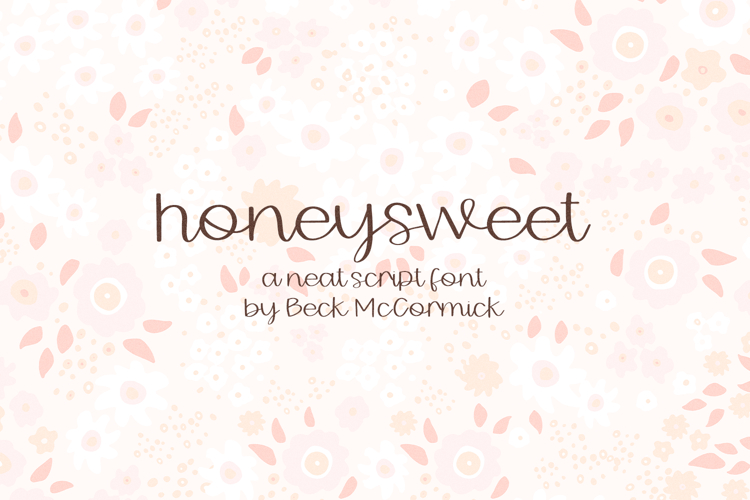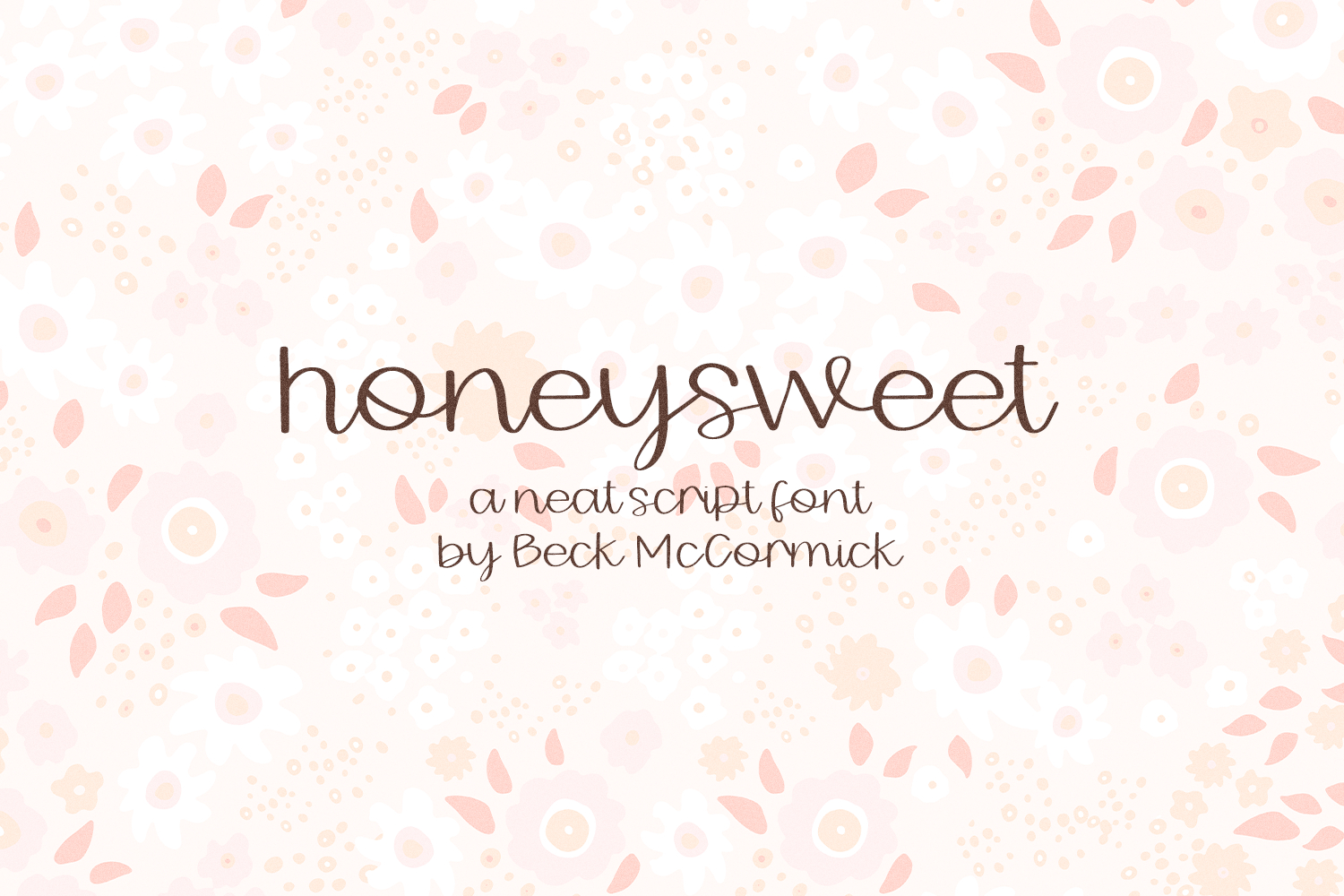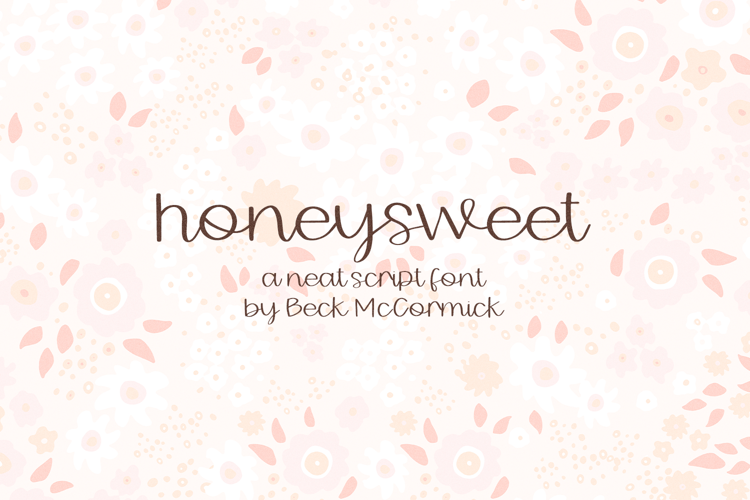
Honeysweet Script
Honeysweet Script is a clean script font. This handwriting font is cute and legible. Honeysweet is perfect for logos & branding, greeting cards, painted banners, digital planners, note-taking apps, Canva, Cricut projects, Silhouette projects, designing SVG files, laser cutting projects, & more.
- 23 ligatures - ds, es, gs, hs, is, ix, js, jv, jw, jx, ls, ms, ns, os, ps, rs, ss, ts, tt, us, ws, xs, ys